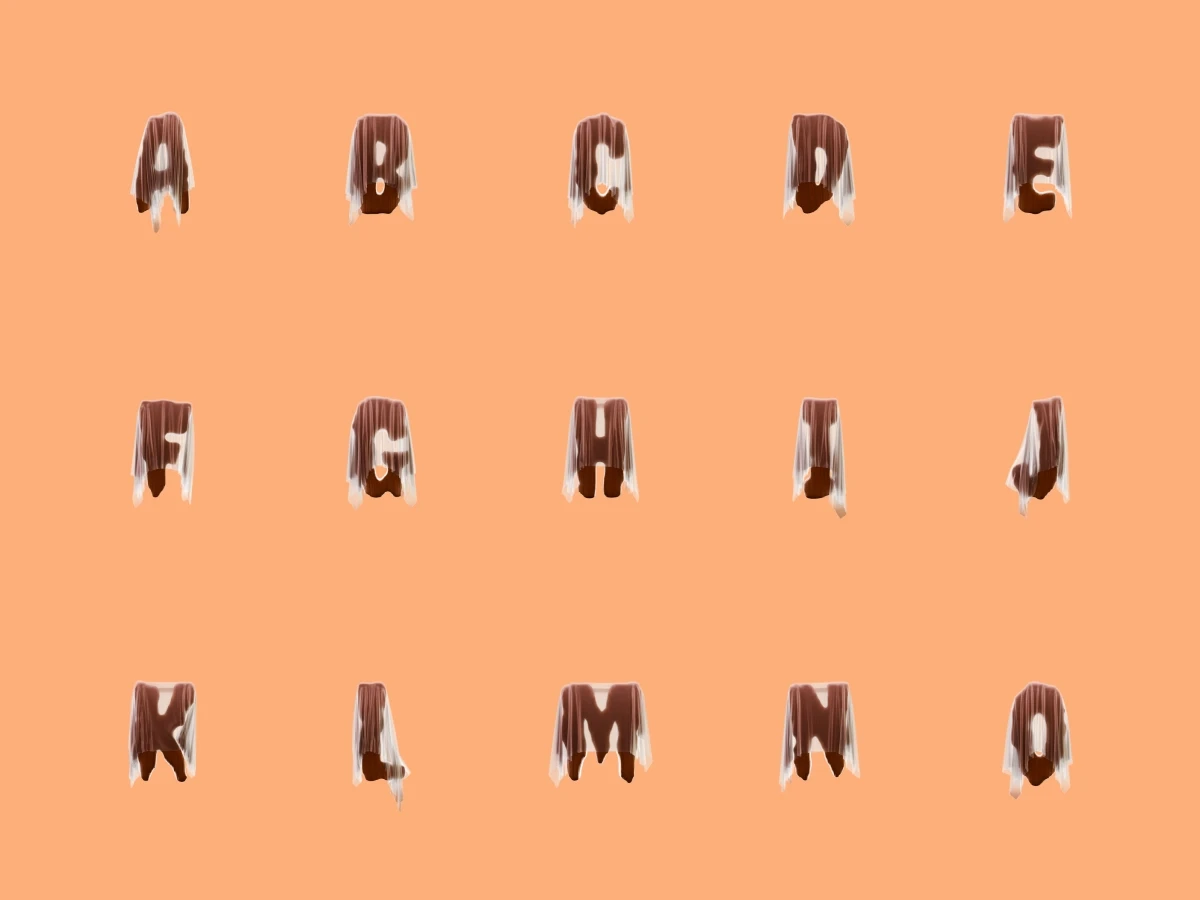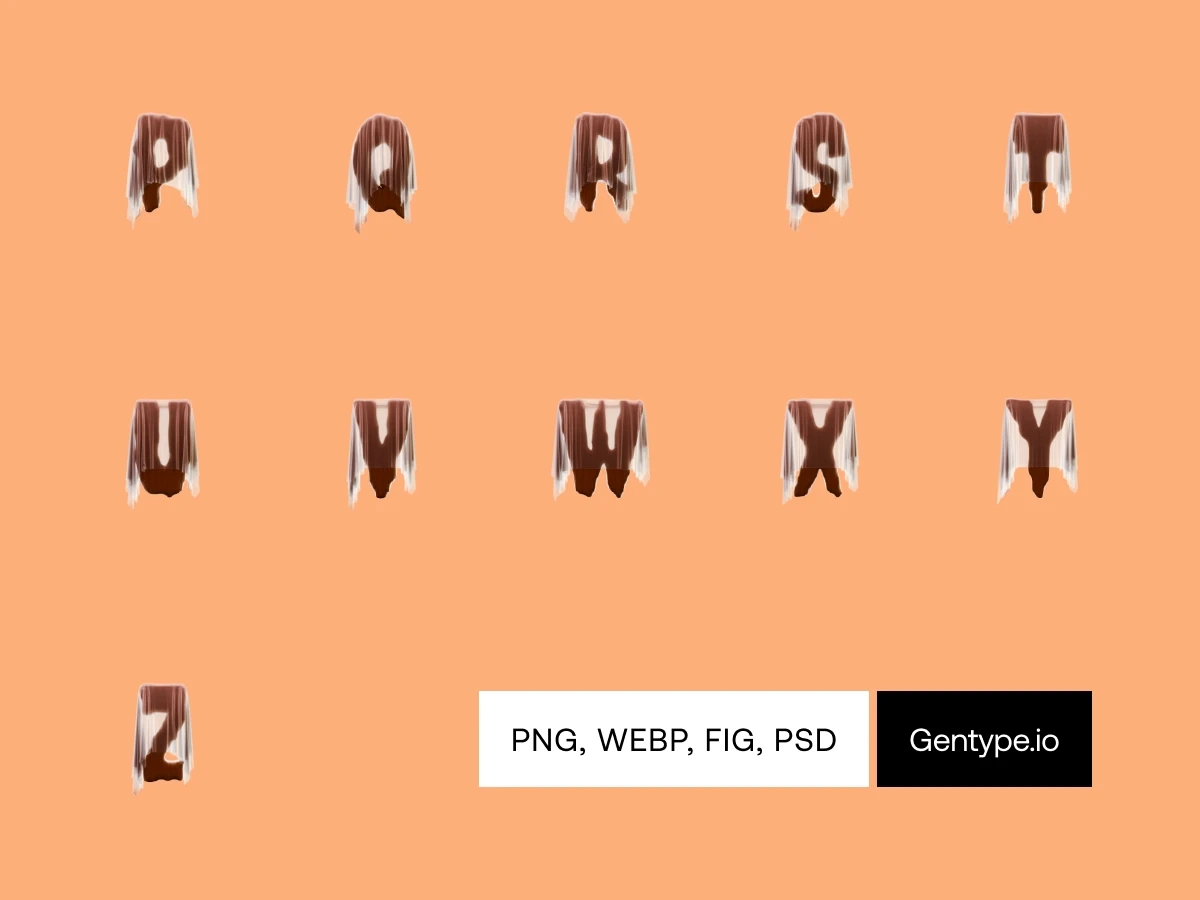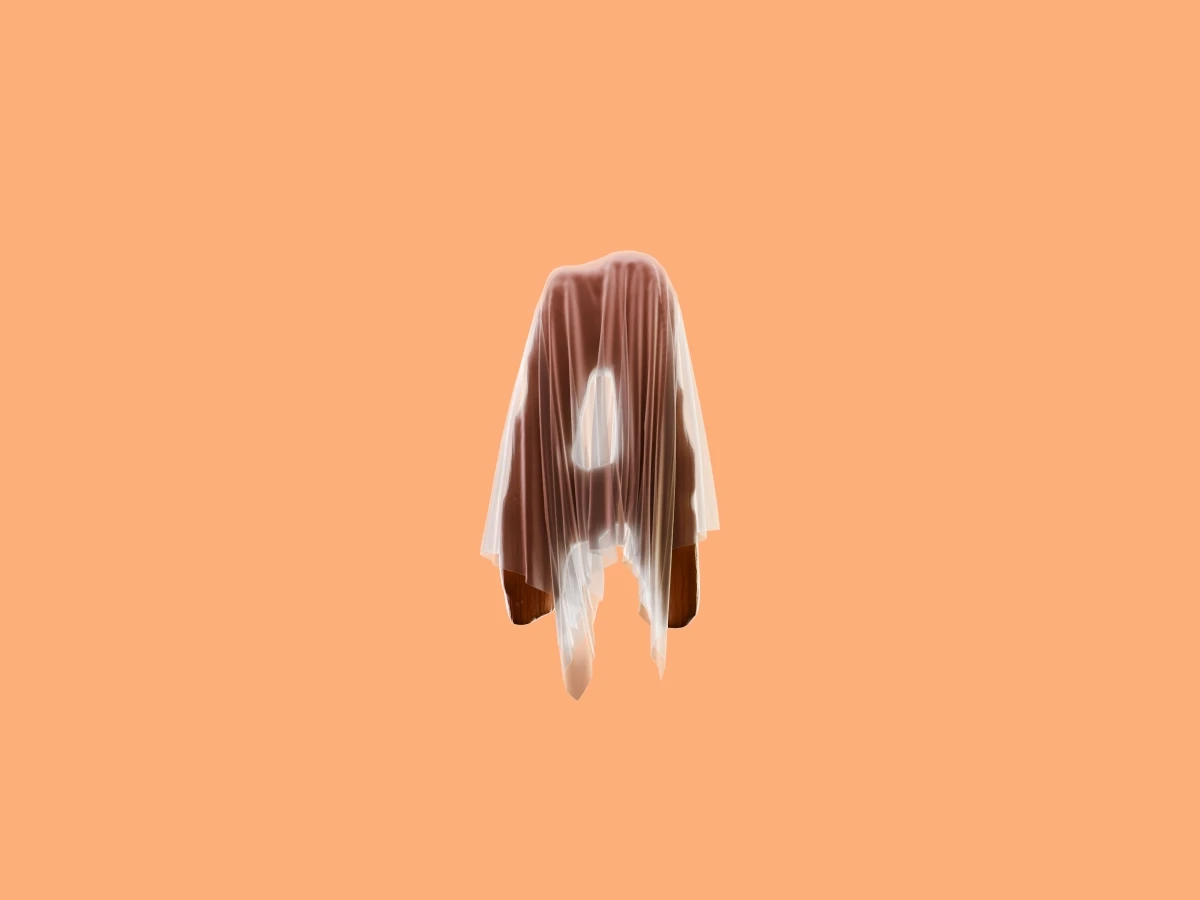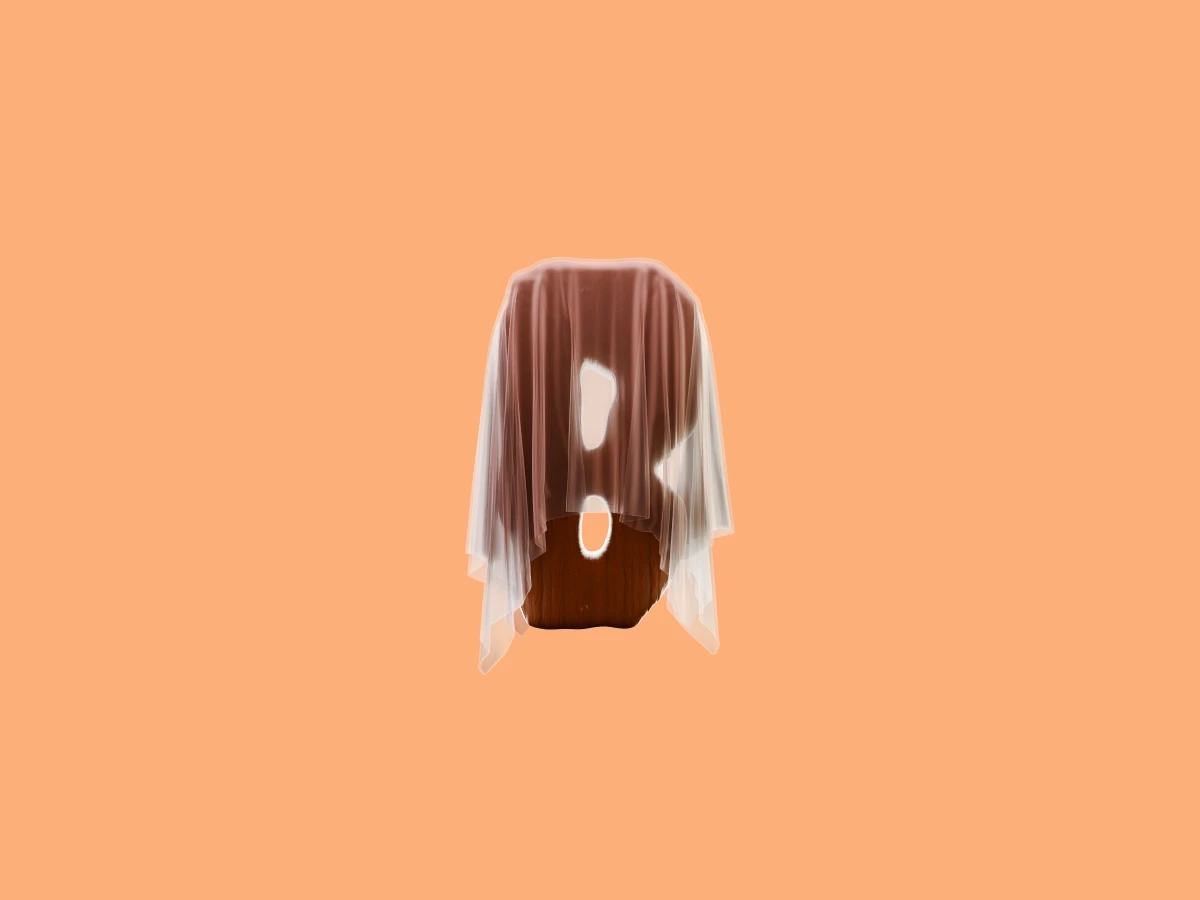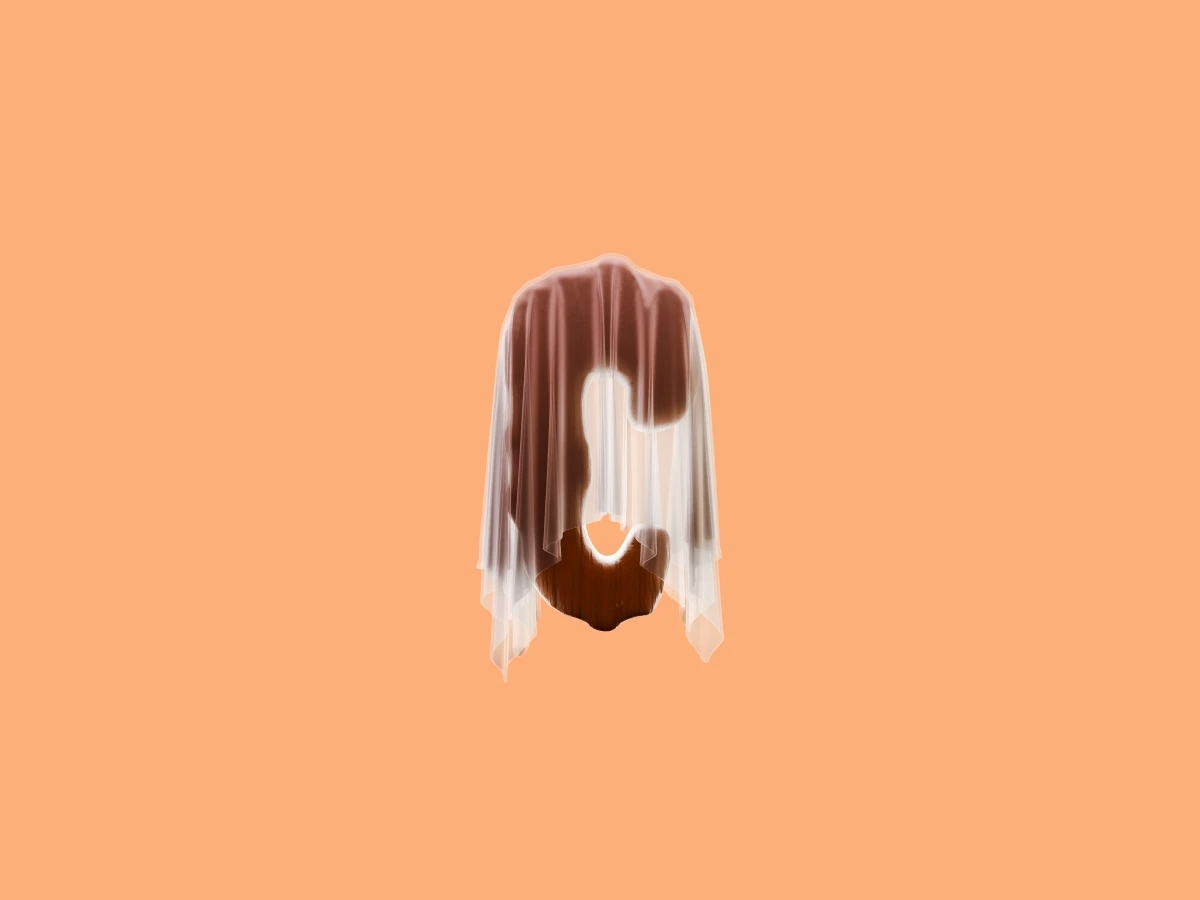
Idea
About the theme
This Halloween, typography takes a spooky twist! Phantom Pumpkin features letters crafted from rich, textured pumpkin skin, shrouded in a ghostly, translucent sheet for that extra eerie vibe. Each letter appears haunted, like it’s floating in from the pumpkin patch, ready to add a playful scare to your designs. Perfect for Halloween-inspired projects or whenever you want to channel a bit of haunted charm.